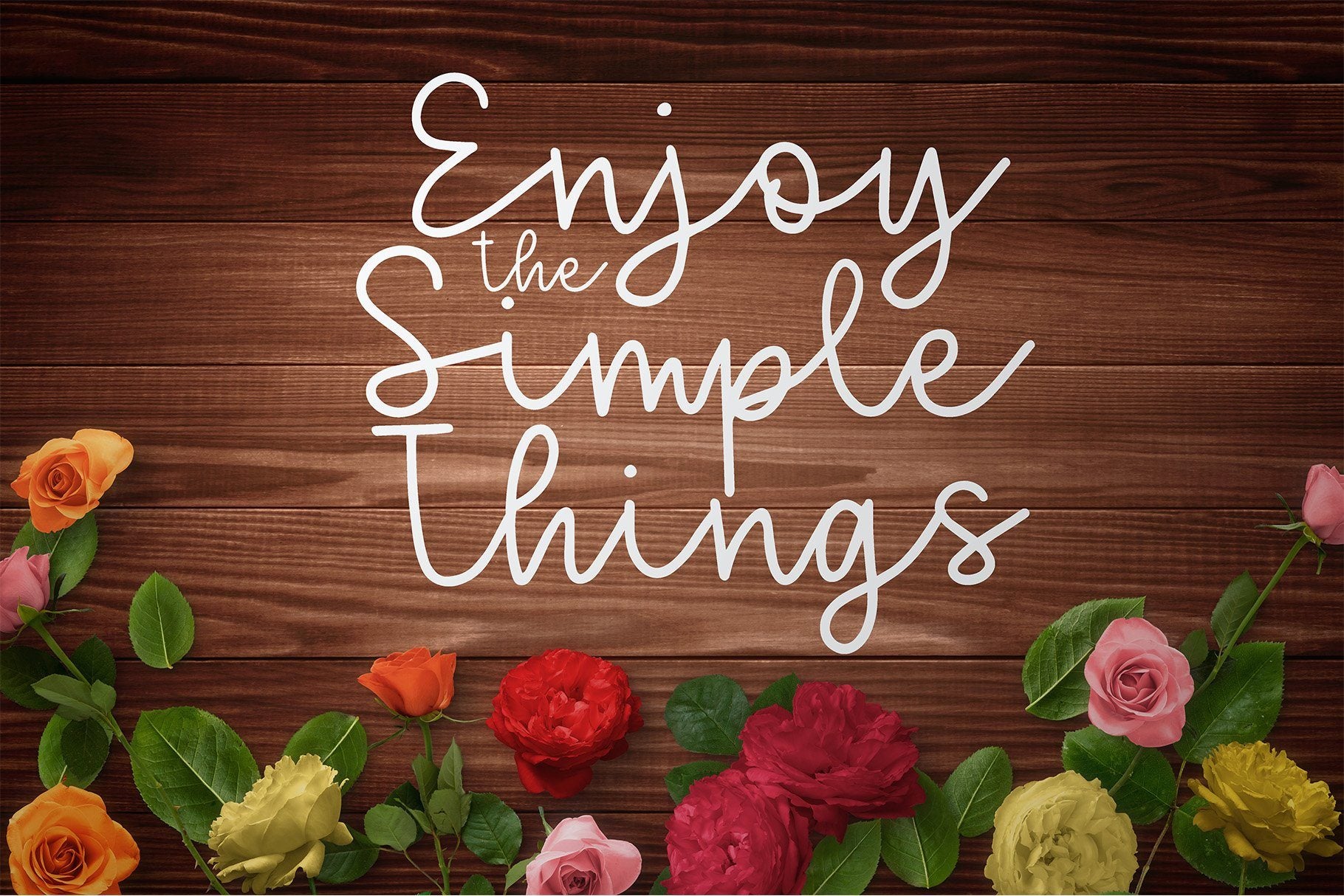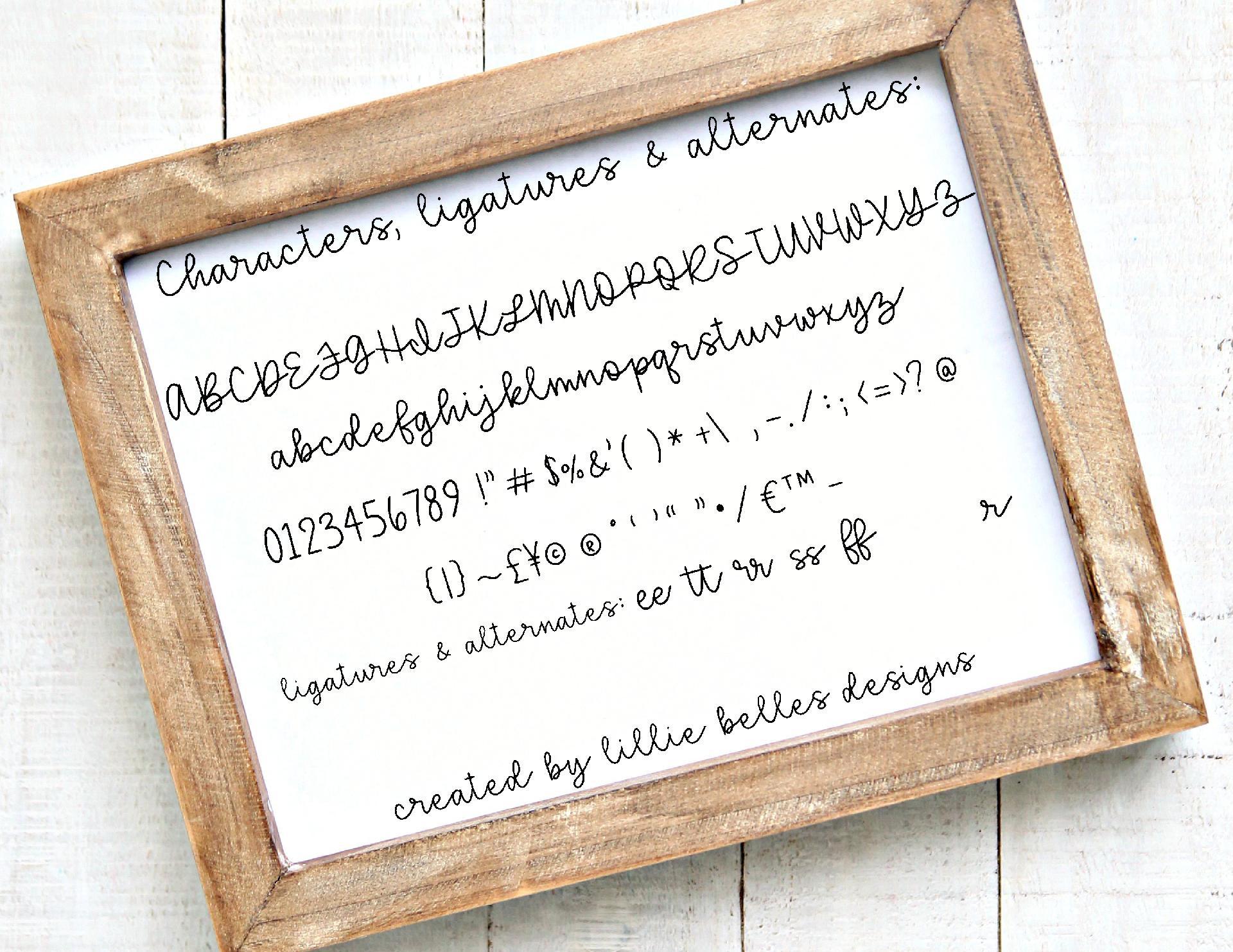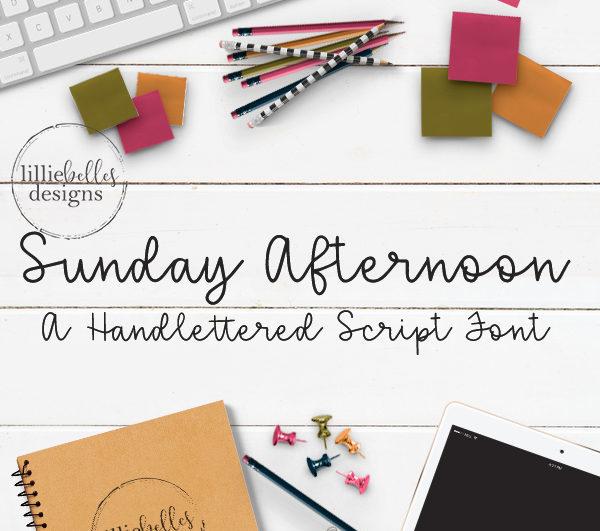
About Sunday Afternoon
Sunday Afternoon. A laid back and relaxed hand lettered script font. This font just gives me a relaxed feeling when I look at it. Laid back & relaxed – just like a Sunday Afternoon… Here’s what you get: Uppercase and lowercase script characters Numbers, punctuation, and symbols Standard ligatures and special beginning ‘r’ character .otf and .ttf files PUA encoded making this a cut-friendly font